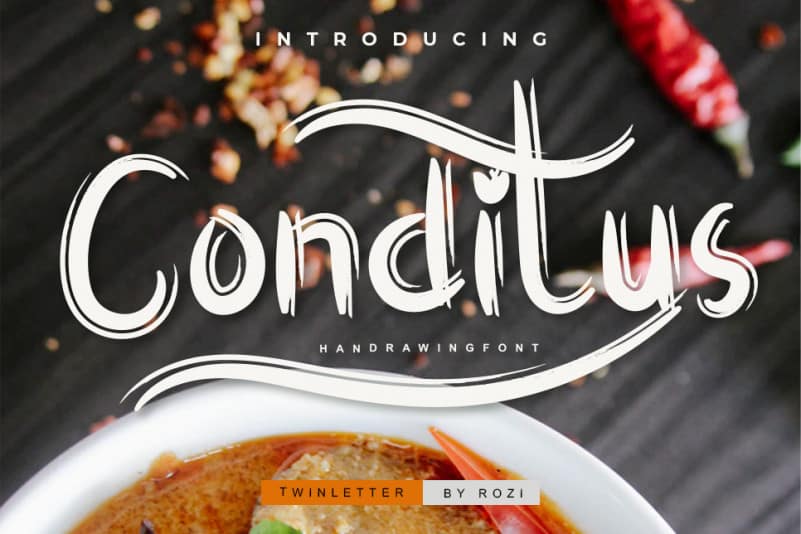
Conditus Script Font
Conditus Script Font feels equally charming and elegant. Whether you’re looking for fonts for Instagram or calligraphy scripts for DIY projects, this handwritten font will turn any creative idea into a true piece of art!